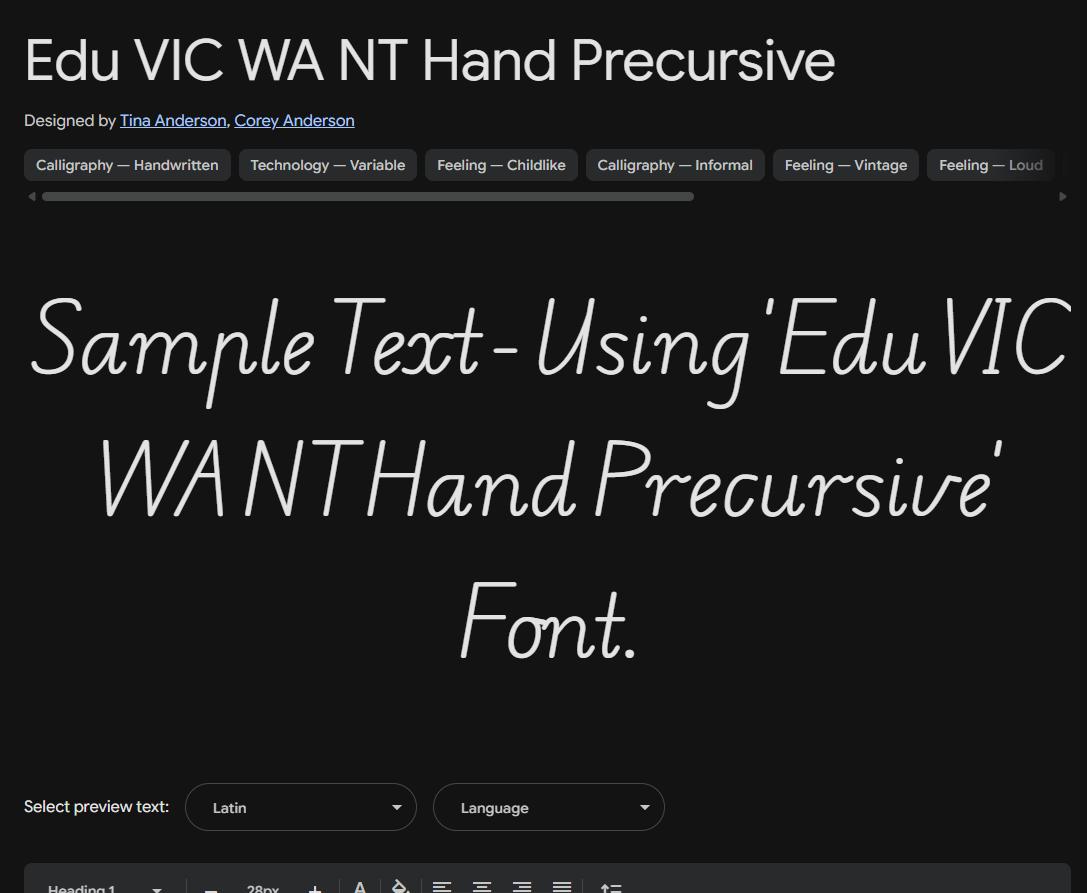
The Edu VIC WA NT Hand Precursive variable font, meticulously engineered by designers Tina Anderson and Corey Anderson, represents a sophisticated intersection of pedagogical compliance and OpenType technology, specifically tailored to the handwriting standards of Victoria, Western Australia, and the Northern Territory. By utilizing a single-axis variable architecture-primarily focused on weight modulation-this typeface transcends static glyph limitations, allowing for seamless interpolation that maintains the structural integrity of unjoined letterforms across various optical sizes. This technical adaptability is critical for early childhood education, where the font's precise stroke directionality and kerning pairs are semantically optimized to facilitate the transition from pre-writing motor skills to formal cursive fluency, providing a digitally responsive solution that adheres to the rigorous instructional requirements of the Australian school curriculum.
The Edu VIC WA NT Hand Precursive font family functions as a sophisticated pedagogical asset, synthesizing the kinetic energy of Australian primary education standards with the advanced flexibility of variable font technology. Its design architecture features a distinctive informal, handwritten calligraphic style that replicates the active and playful strokes of a developing learner, offering a unique visual landscape that is simultaneously loud, happy, and childlike. By leveraging modern interpolation to maintain legibility across various weights, this typeface bridges the gap between digital clarity and a vintage, rugged tactile quality, ensuring that its humanist letterforms resonate with a feeling of authentic pencil-to-paper friction. This results in a semantically rich typographic tool that honors historical handwriting models while providing a high-performance, contemporary solution for immersive and instructional environments.
While the Edu VIC WA NT Hand Precursive variable font excels as a specialized pedagogical instrument tailored for the Western Australian and Northern Territory educational frameworks, its application is fundamentally unsuitable for high-stakes corporate sectors such as international finance, litigation, or pharmaceutical engineering. The typeface's specific glyph construction-defined by precursive entry strokes and a monolinear weight axis designed to model foundational motor skills-lacks the typographic "gravitas" and optical scaling necessary for authoritative brand identity or complex data visualization. In professional environments where legibility must be balanced with rapid information retrieval, the inherent informal semiotics of its school-handwriting origins introduce significant cognitive friction, failing to meet the rigorous accessibility standards and structural "neutrality" required for high-density documentation or fiduciary communications.
Precursive styles are designed as individual, unlinked characters to help students master basic letter shapes before they move to connected cursive writing. Static ligature disabling ensures that no terminal swash triggers a join, maintaining a distinct 100-unit side-bearing buffer between adjacent glyphs.